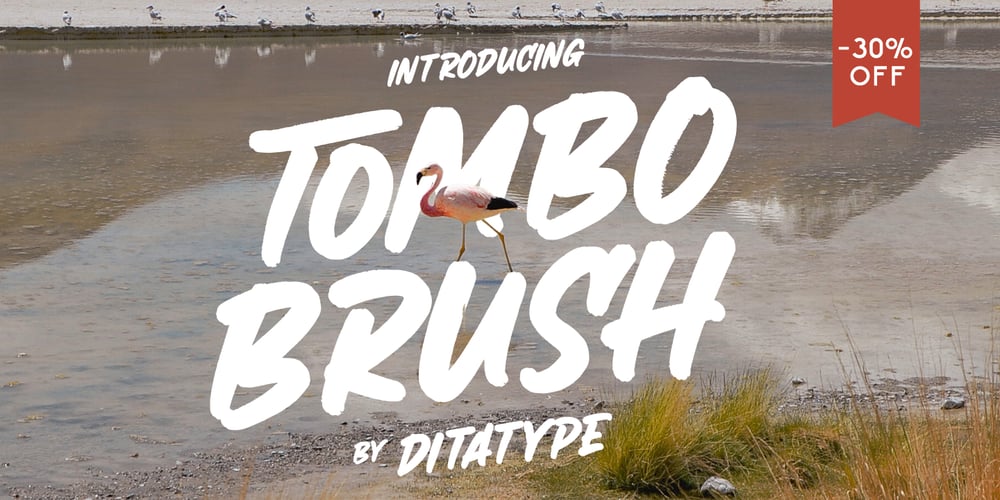
Tombo Brush Font Family was designed by Donis Miftahudin and published by Ditatype. Tombo Brush contains 1 styles and family package options. Tombo Brush is an interesting font that combines brush font’s artistic and organic characteristics with even line edges which are clear and firm. Furthermore, the capital letters express more modern, simple impressions by following the brush script font’s characteristics of the soft and smooth brush wipes, yet the even smooth lines on the edges show clearer, firmer nuances.Bright and contrast colors can show interesting, dynamic nuances on designs with this font. The even edge lines will ease the application of colors and show clearer visual effects separated from the background. You can apply this font for big text sizes for a legibility reason and also enjoy the available features here.Features: Multilingual Supports PUA Encoded Numerals and Punctuations Tombo Brush fits best for various design projects, such as brandings, quotes, printed products, merchandise, social media, etc. Find out more ways to use this font by taking a look at the font preview.Thanks for purchasing our fonts. Hopefully, you have a great time using our font. Feel free to contact us anytime for further information or when you have trouble with the font. Thanks a lot and happy designing.